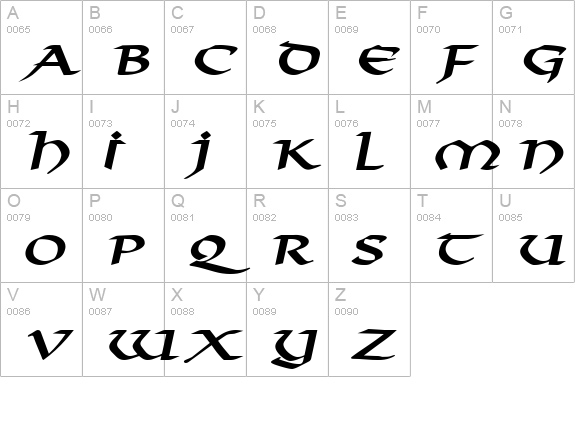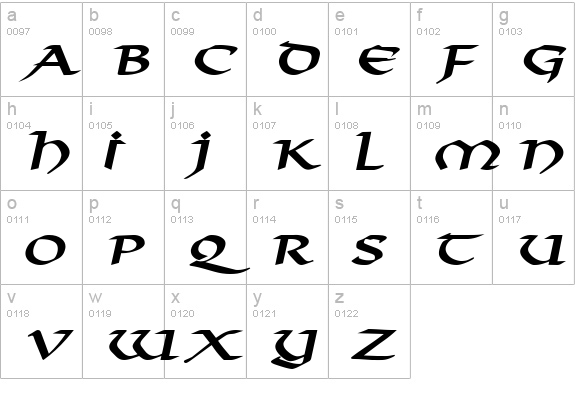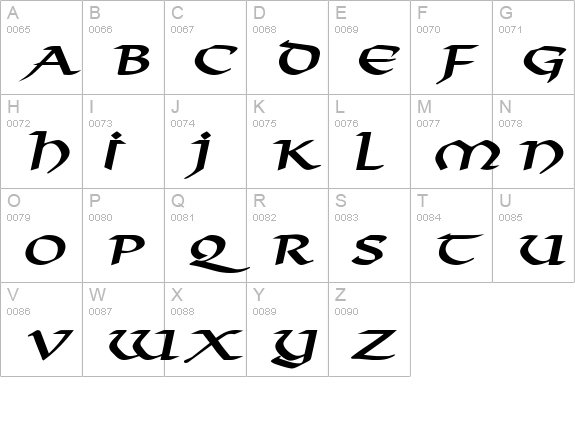
Valhalla Wide BoldItalic is a distinctive, extended-width variant in the Valhalla typeface family \xE2\x80\x94 well suited to design and typography projects.
Valhalla Wide BoldItalic font is the epitome of modern elegance and sophistication. With its bold and italic design, this font exudes a striking and powerful presence, perfect for making a statement in any design project. The strong and dynamic letterforms of Valhalla Wide BoldItalic font capture attention with their confident and assertive style. Whether used in headlines, logos, or branding materials, this font effortlessly conveys a sense of strength and authority. What sets Valhalla Wide BoldItalic font apart is its versatility. It seamlessly combines both boldness and italic styling, allowing for a wide range of design possibilities. From eye-catching headlines to stylish captions, this font adds a touch of sophistication and flair to any text. One of the best features of Valhalla Wide BoldItalic font is that it is freely available to download at FontsMarket.com. This means that designers and enthusiasts alike can easily access and use this font in their creative projects without any cost. So, whether you're working on a professional design project or simply looking to add a touch of elegance to your personal creations, Valhalla Wide BoldItalic font is the perfect choice. With its bold and italic design, versatility, and the fact that it is free to download at FontsMarket.com, this font is a must-have addition to any designer's toolkit.